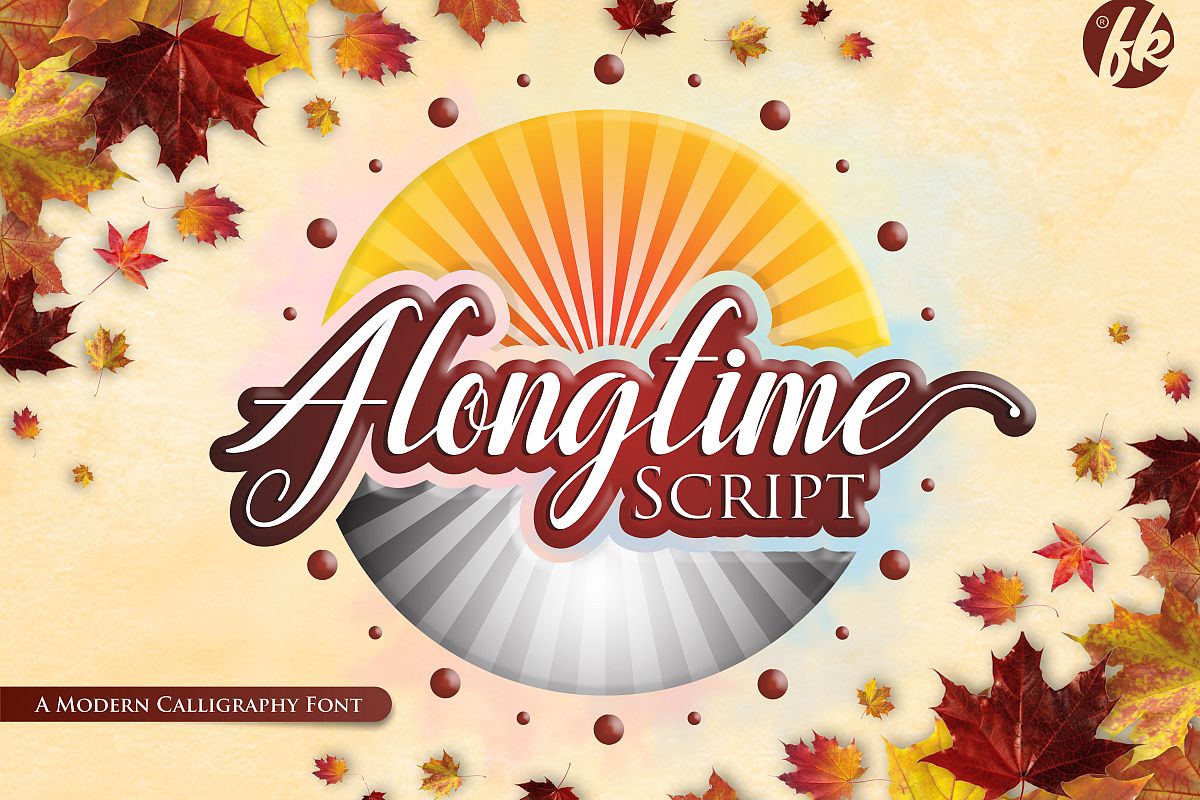
Alongtime Script
Alongtime is a work of art that tells of long waiting to achieve a happiness.
value time even for one second
Alongtime Script a new fresh & modern script with a
handmade calligraphy style, decorative characters and a dancing
baseline! So beautiful on invitation like greeting cards, branding
materials, business cards, quotes, posters, and more!!
The alternative
characters were divided into several Open Type features such as Swash,
Stylistic Sets, Stylistic Alternates, Contextual Alternates. The Open
coded fonts). so that all the alternate characters can easily be
accessed in full by a craftsman or designer.
Alongtime Script :
Uppercase & Lowercase International Languange & Symbols
Support Punctuation & Number PUA Unicode Range Standard Stylistic
Alternates Stylistic Set 1-10 Character Variant Contextual.